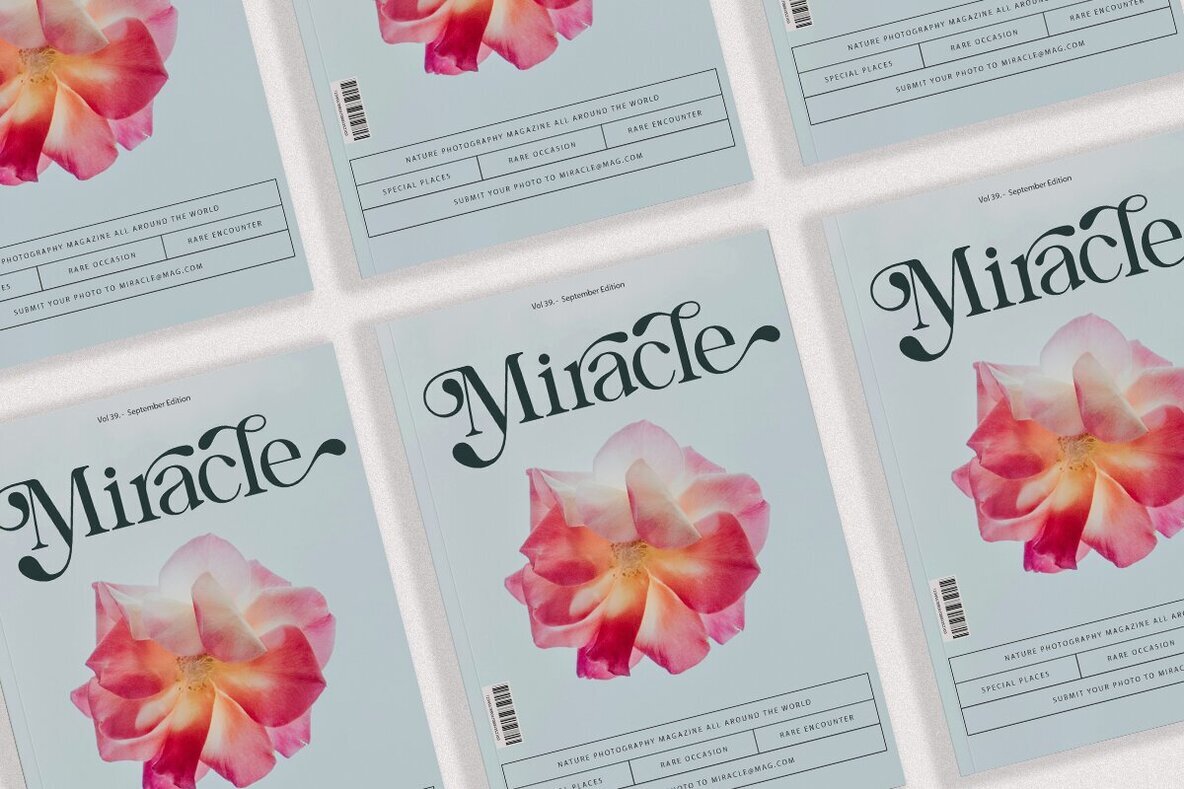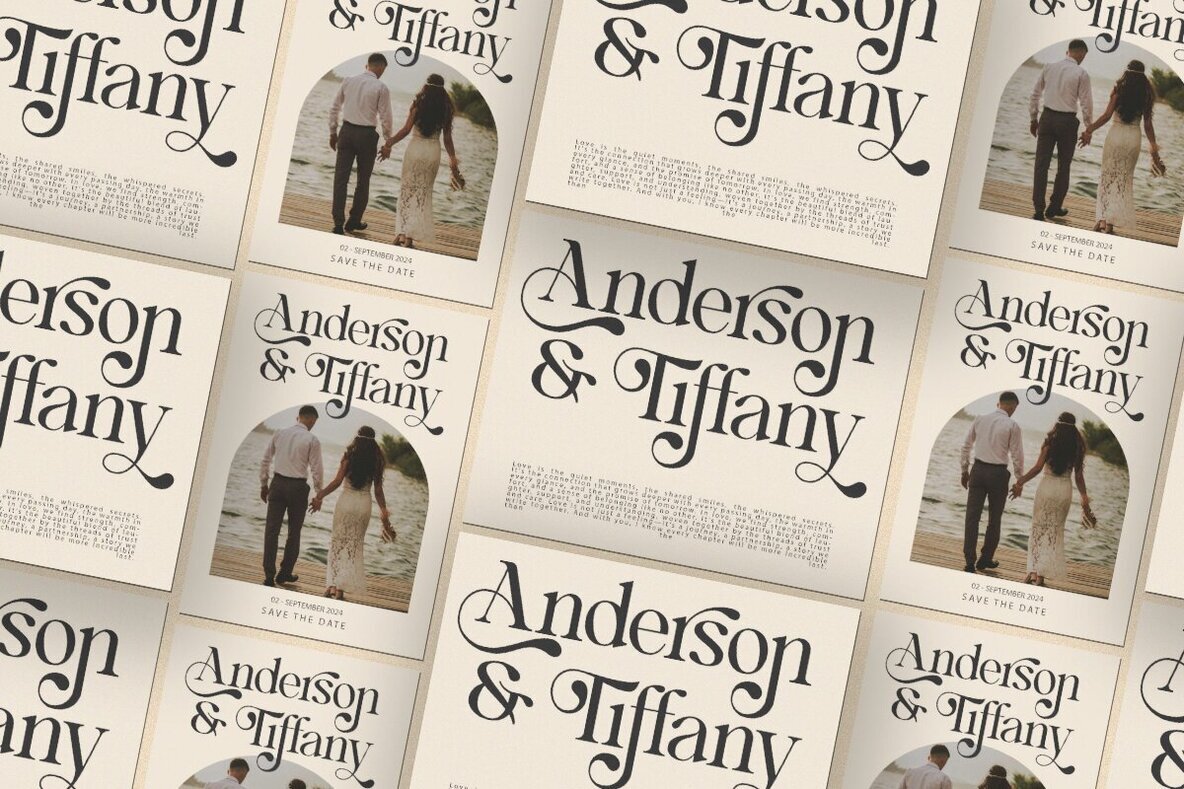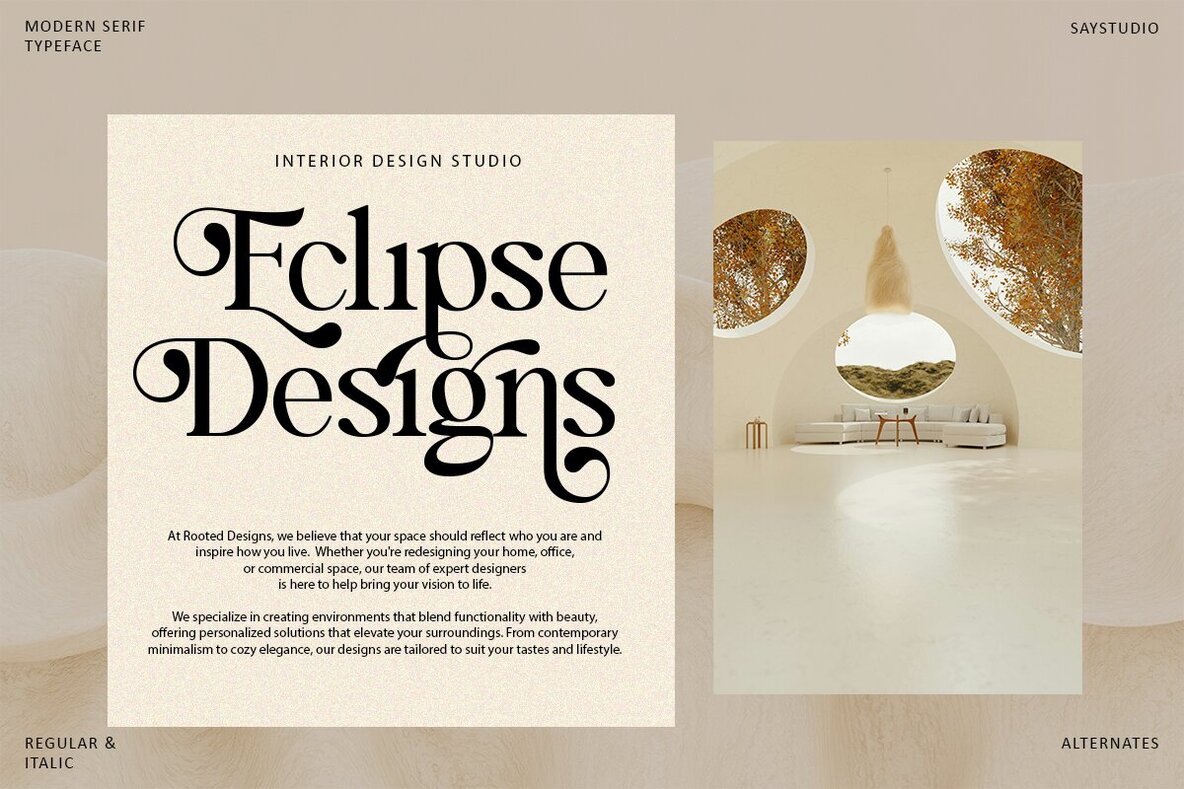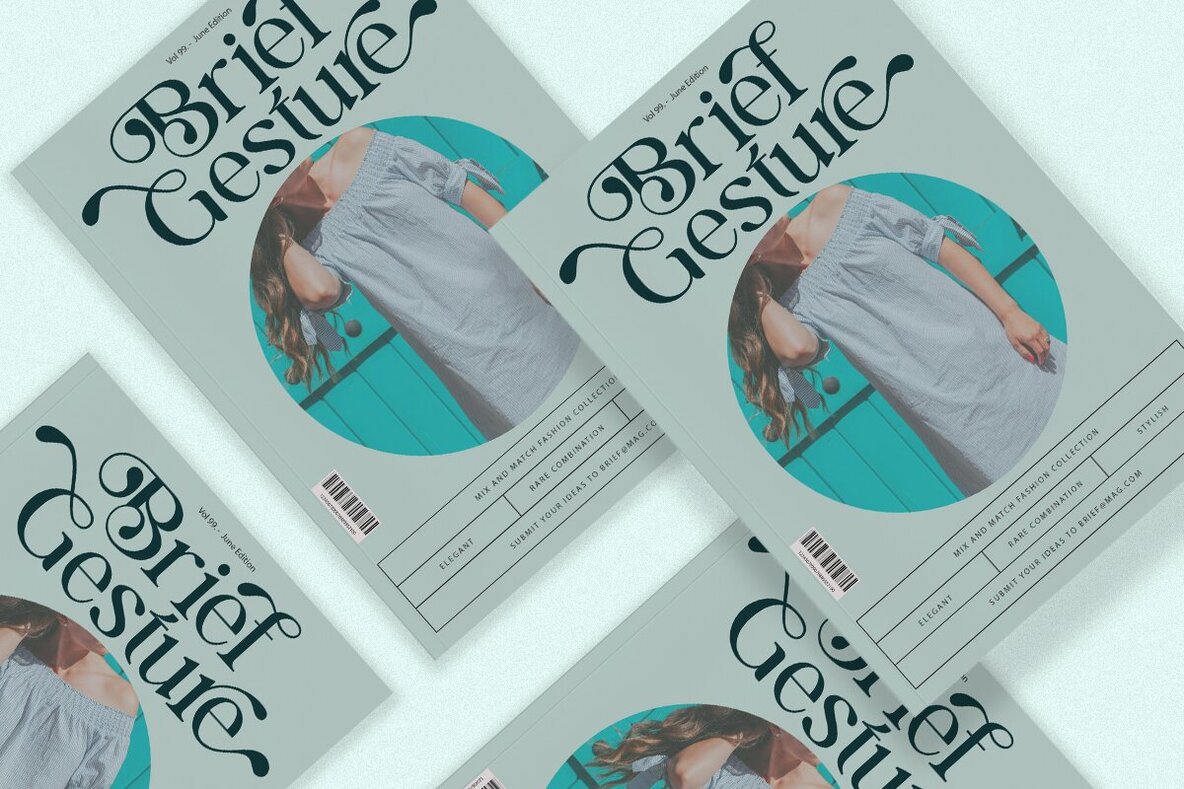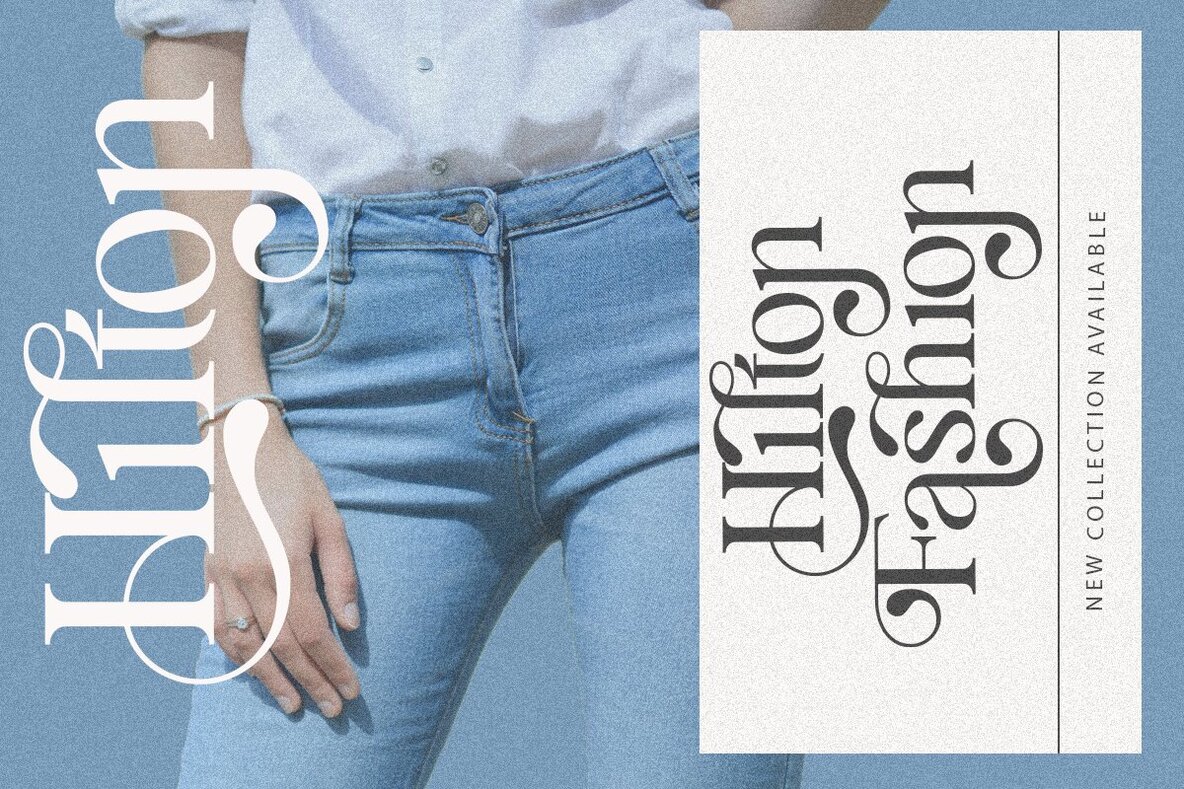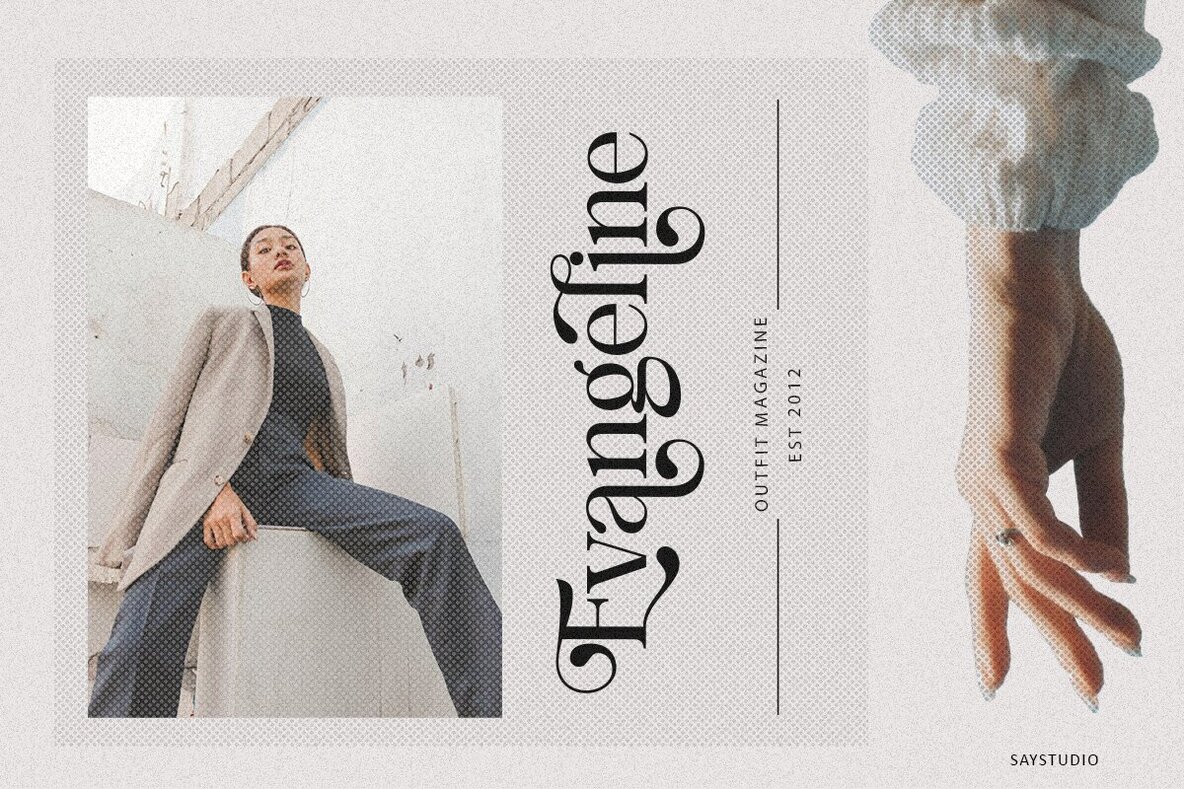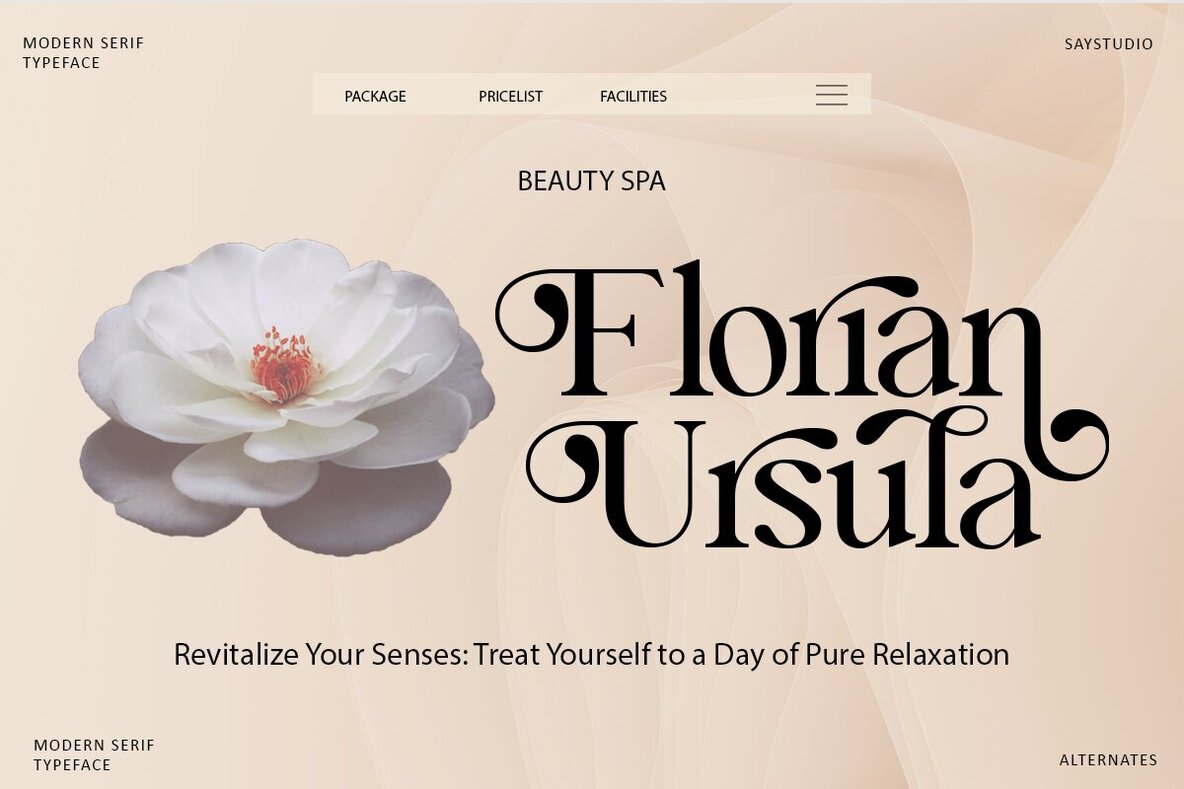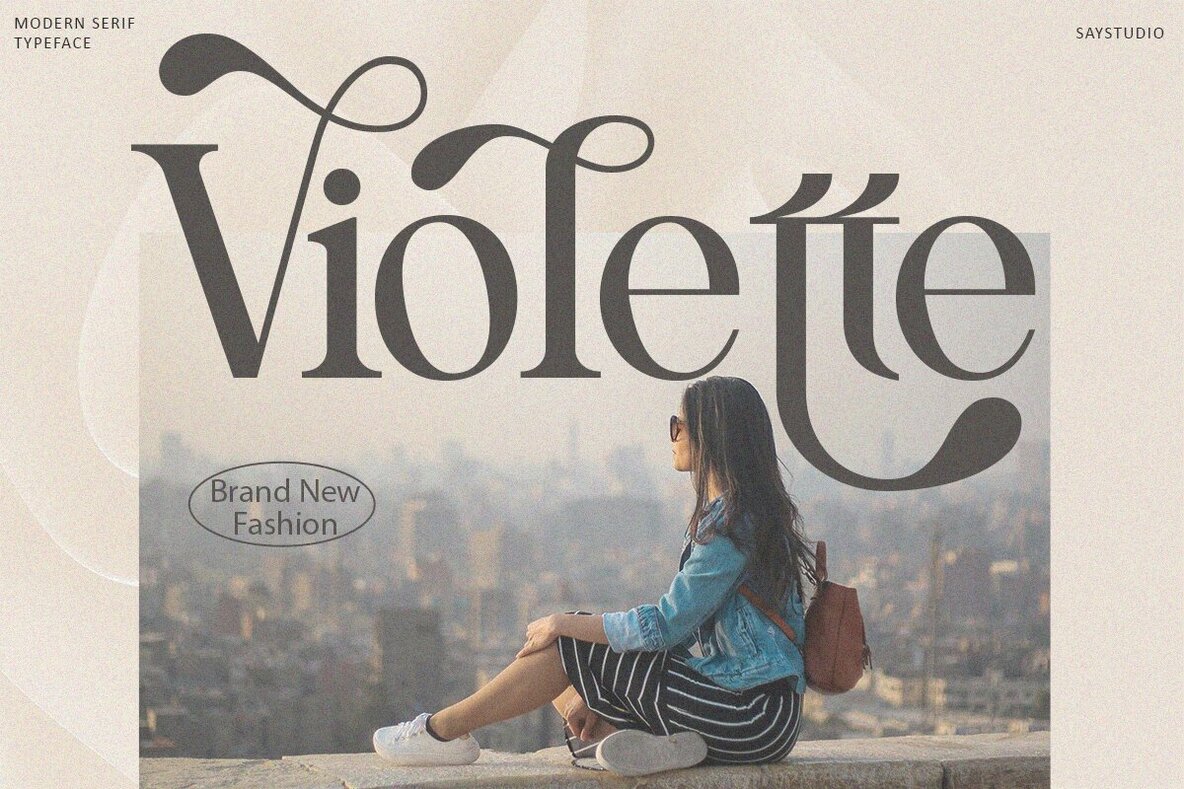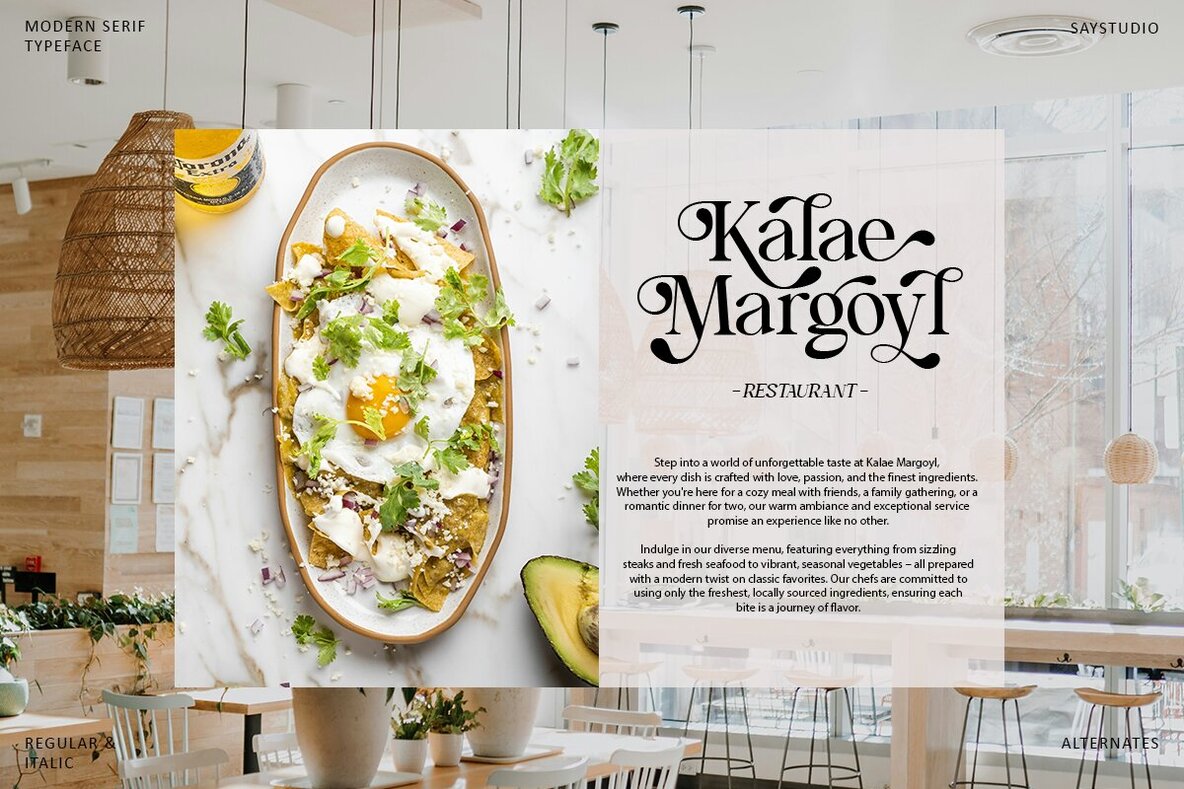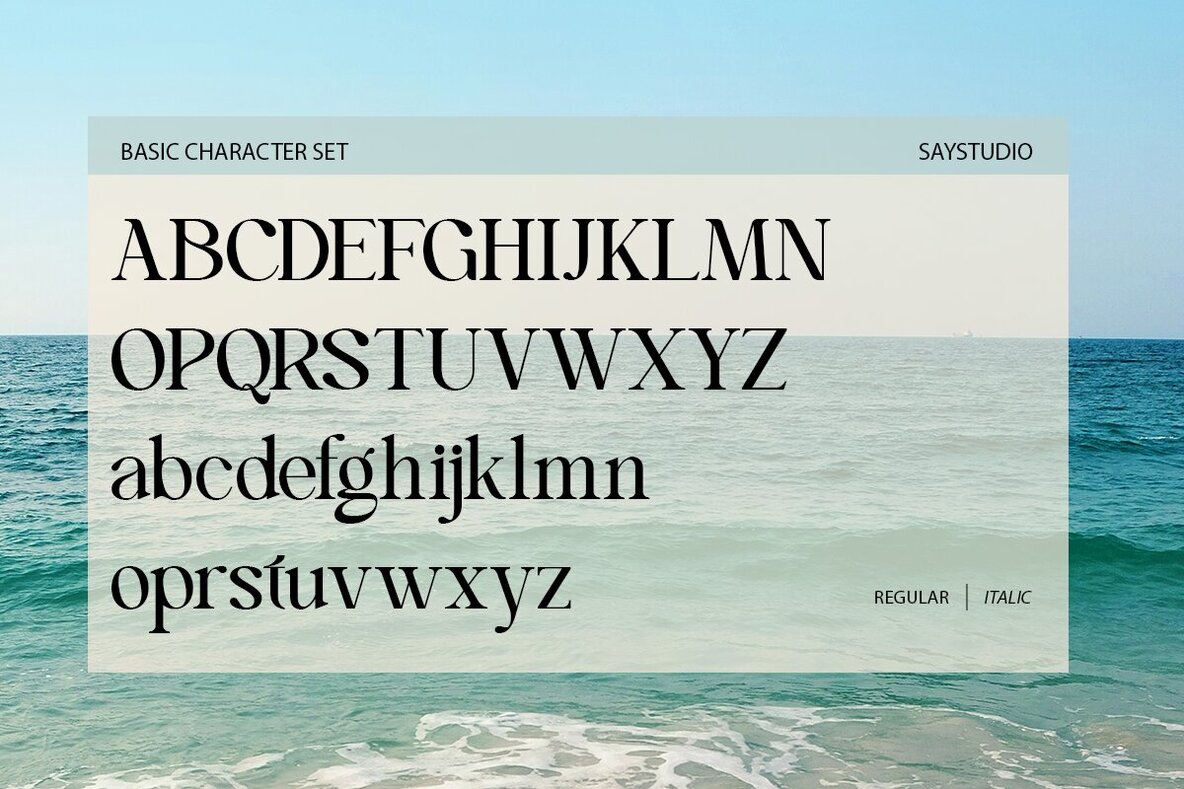
Blue Mirage Font
Blue Mirage is a contemporary serif font featuring high contrast and elegantly curved letterforms. Designed for versatility, it offers over 60 distinctive alternate characters, enabling the creation of captivating and unique typographic designs. This font is ideal for any project requiring sophistication and personality.
Included in the Blue Mirage collection are two primary styles: regular and italic. The font also supports multiple languages, making it suitable for a wide range of international projects. With its unique alternates and modern appeal, Blue Mirage is the perfect choice for designers seeking to enhance the visual impact of their work.